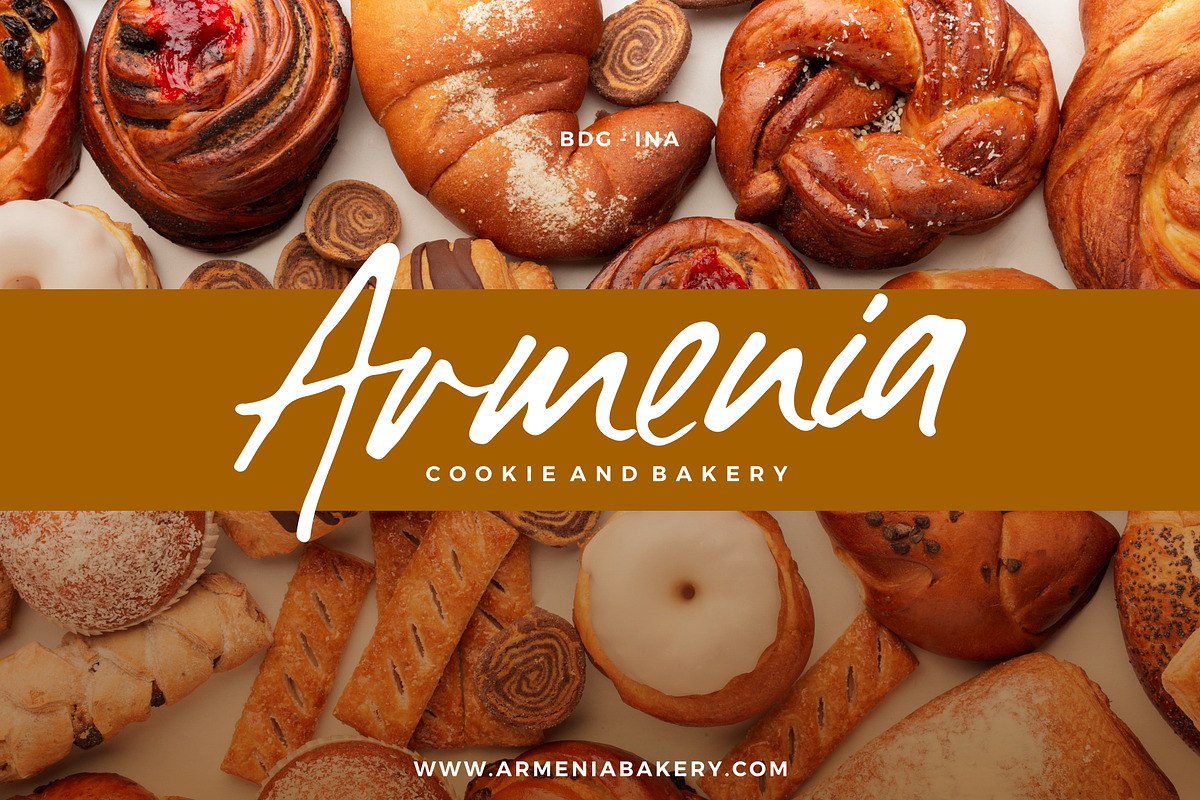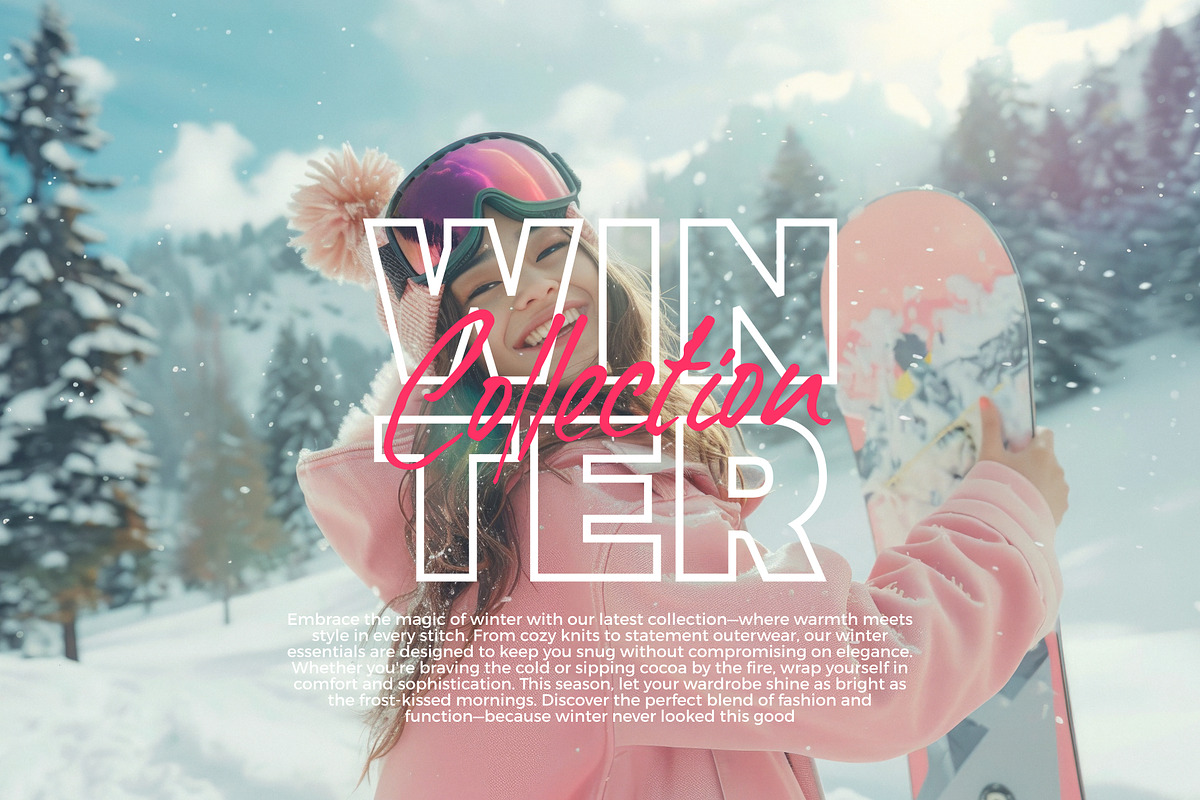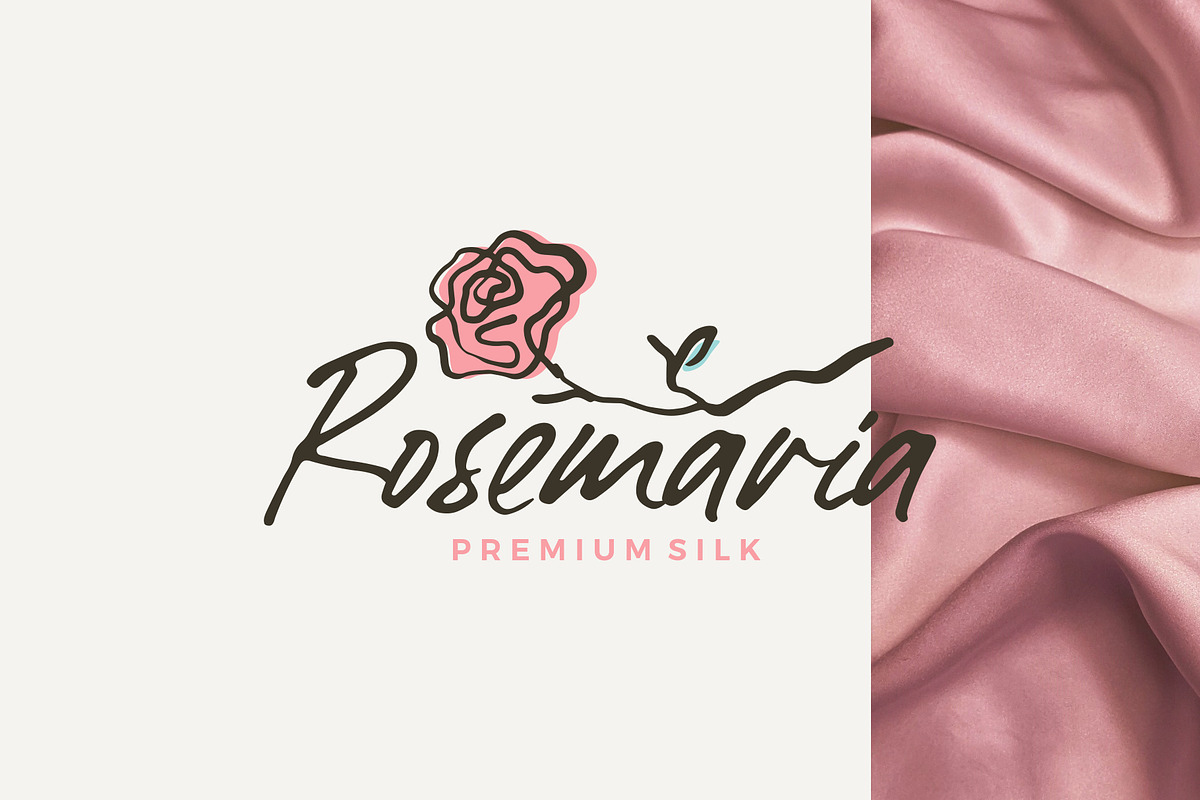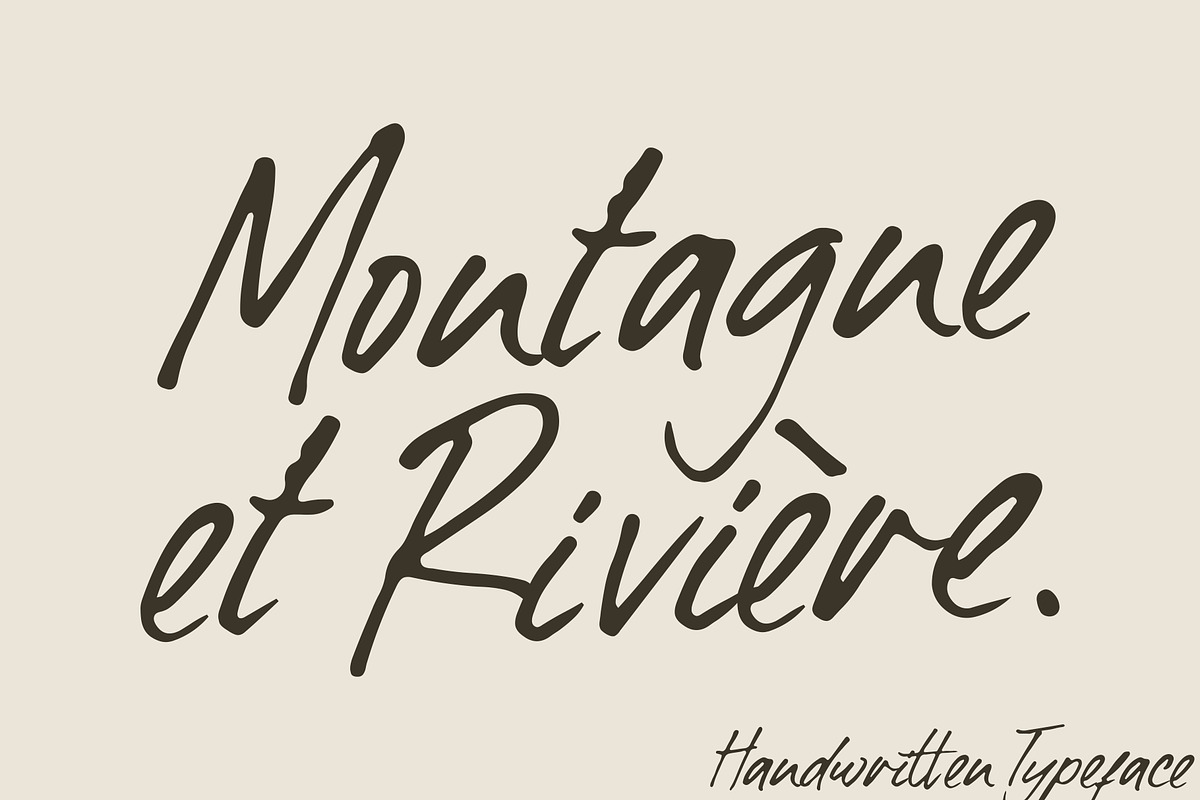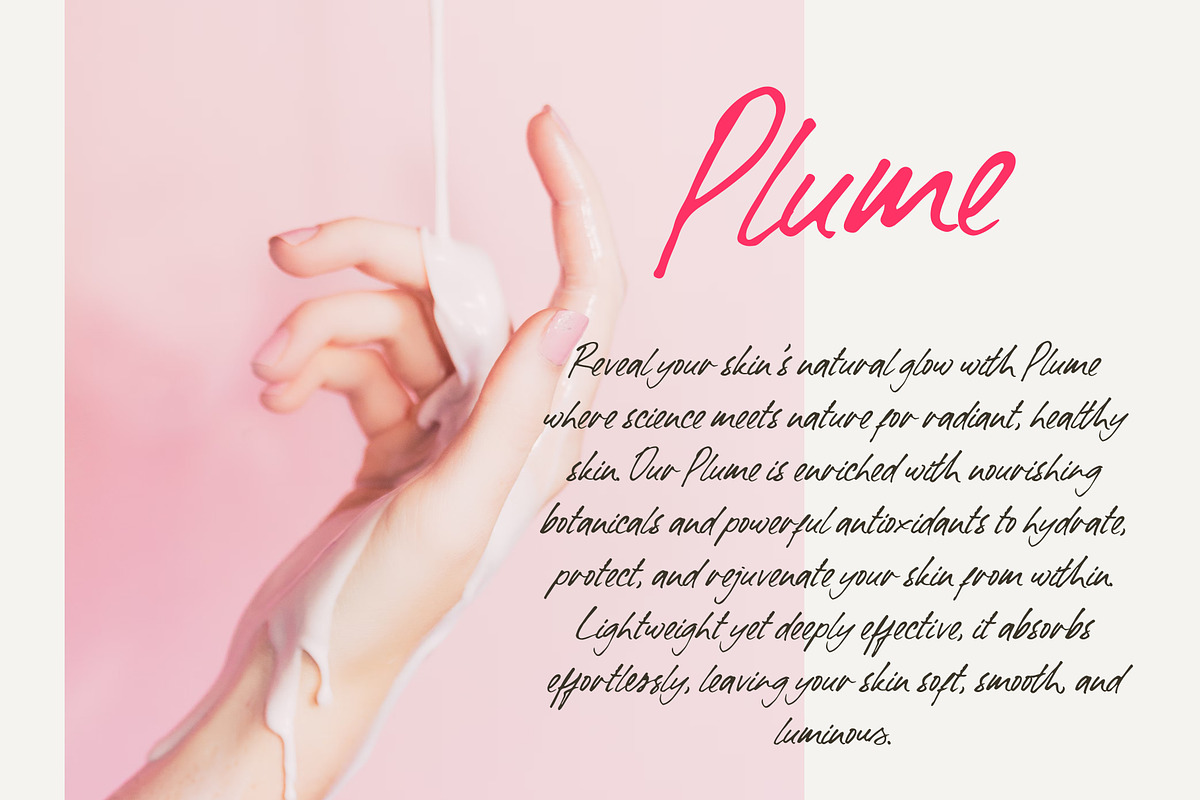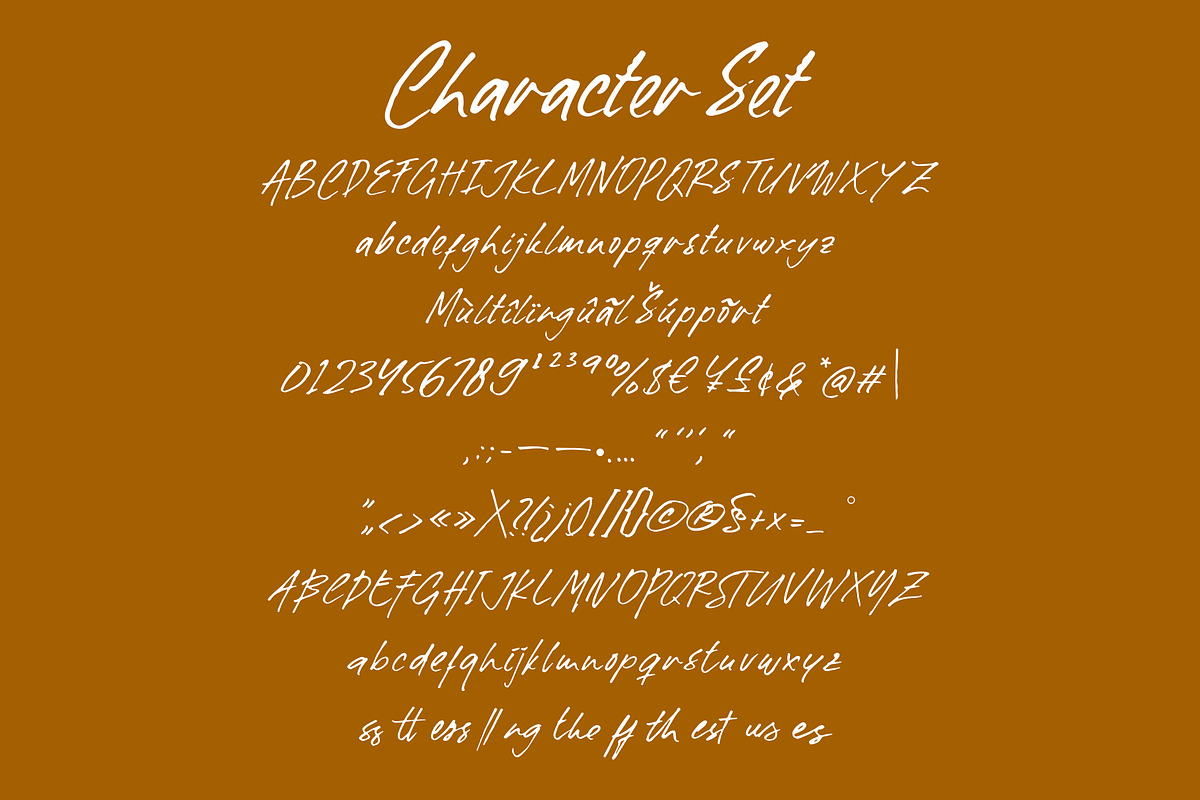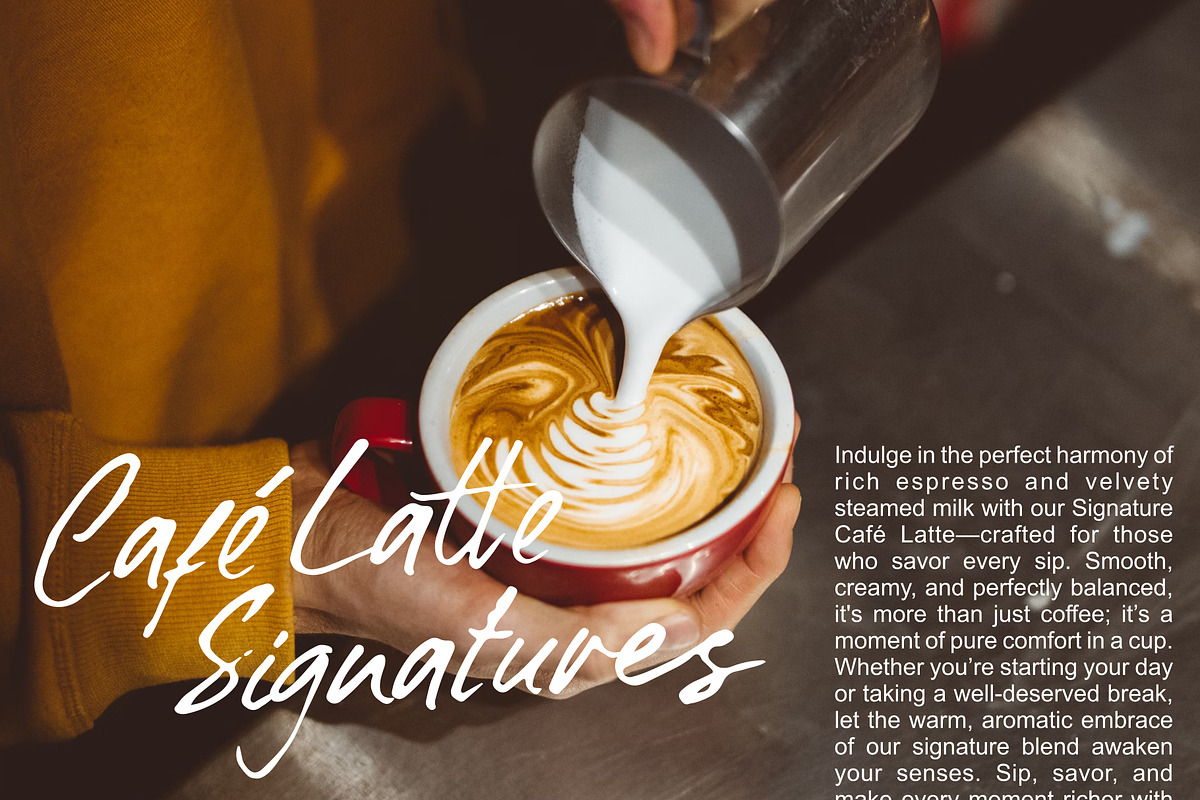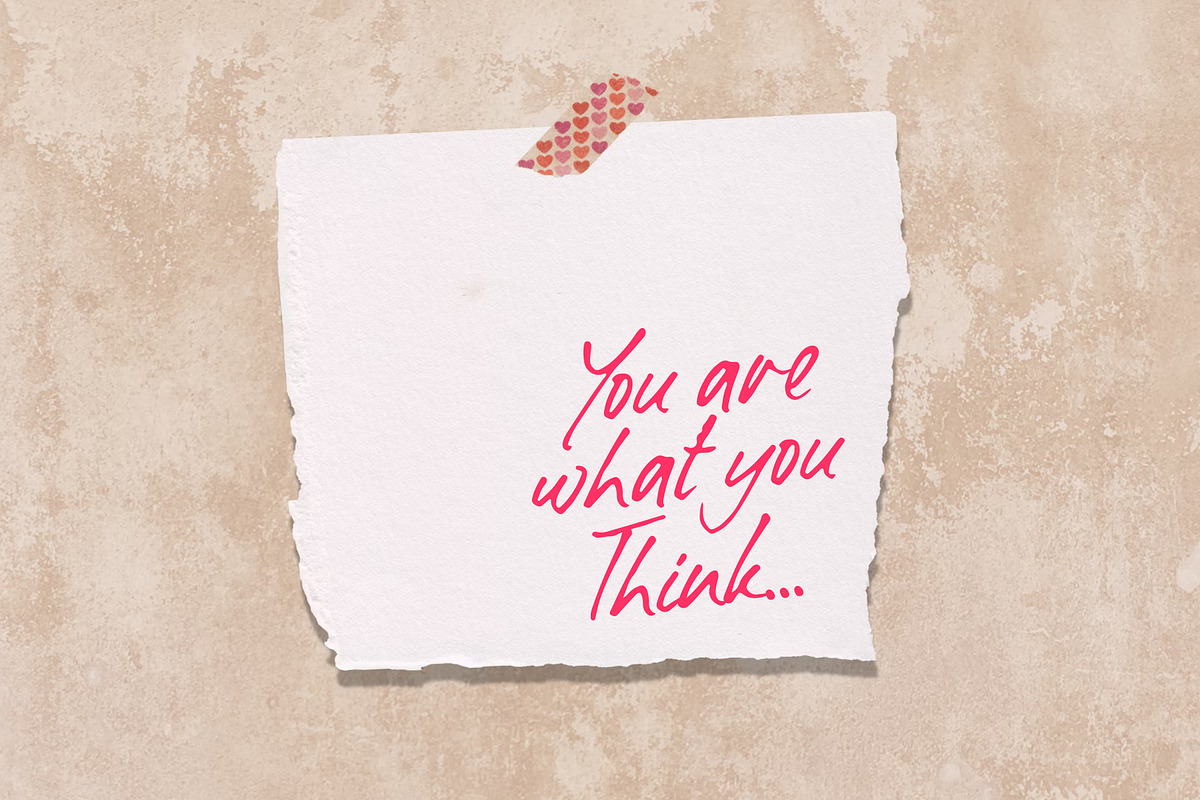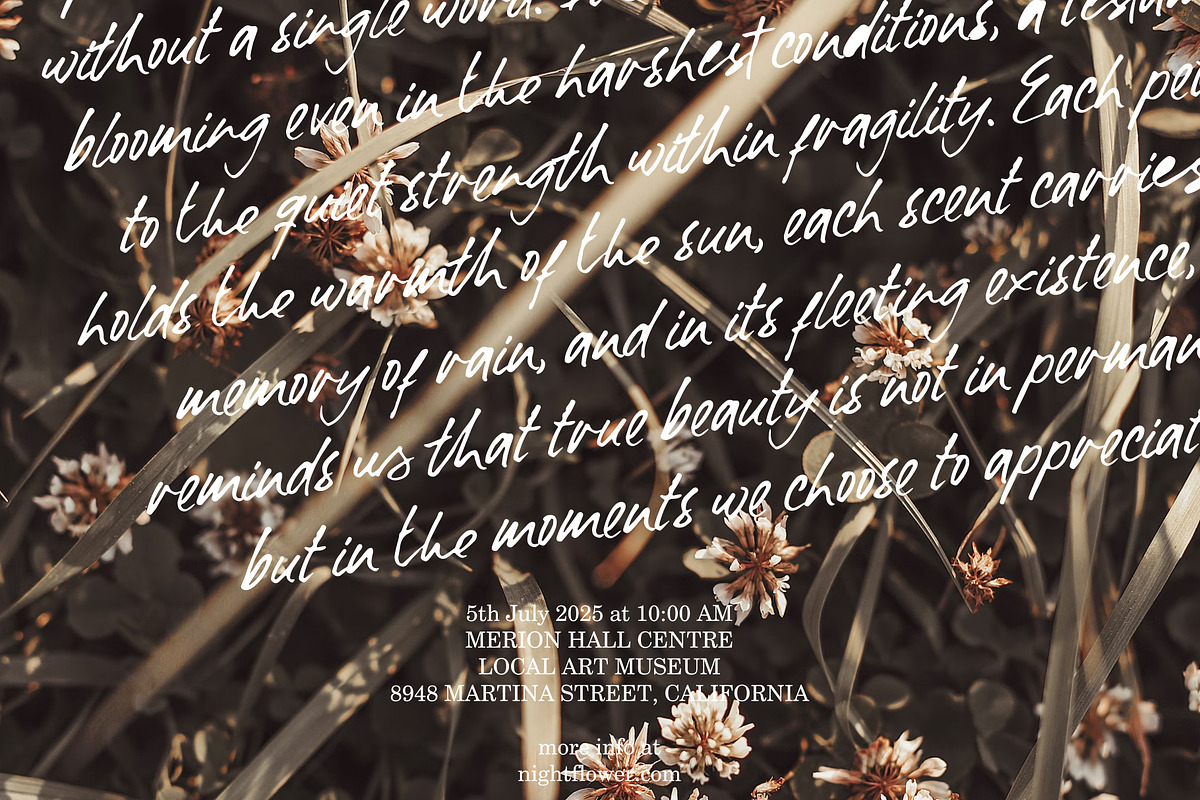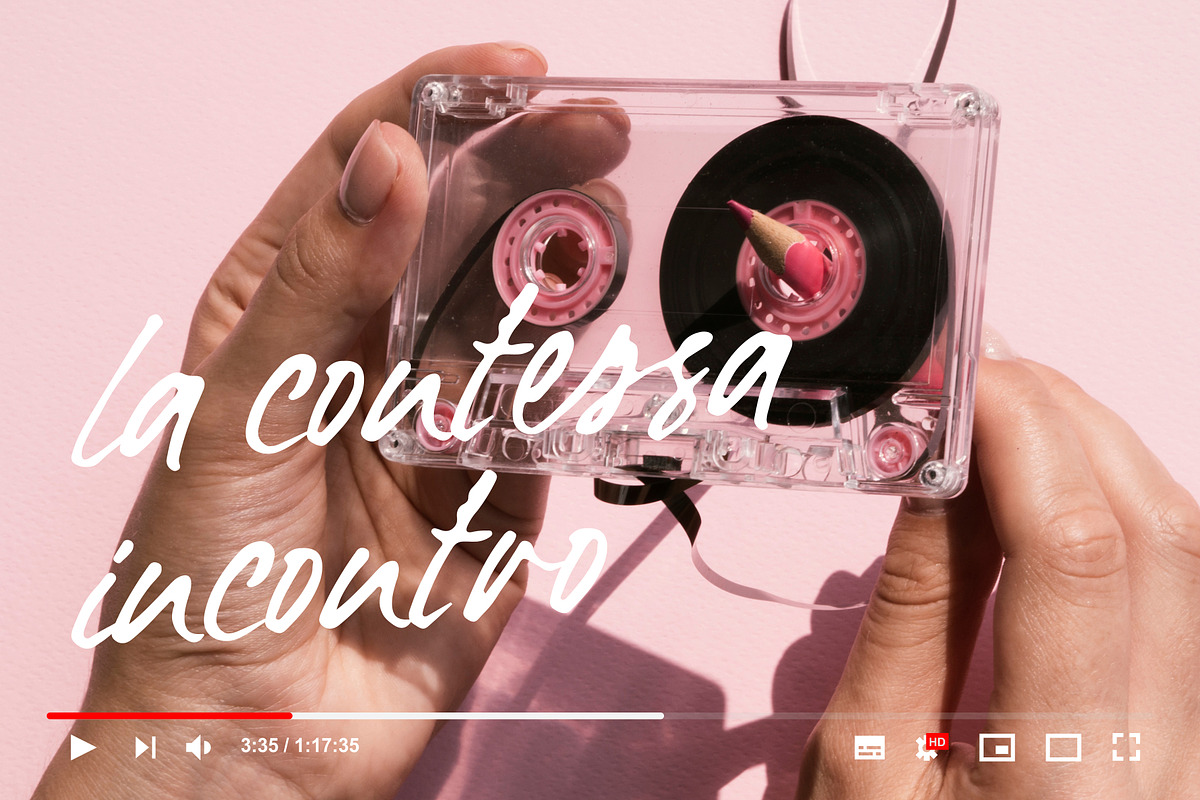
Montagne et Rivière
Montagne et Rivière – Elegant & Natural Handwritten Typeface
Inspired by the beauty of nature, Montagne et Rivière is a refined handwritten typeface crafted from natural, hand-scanned strokes. With its effortless flow and organic charm, this font brings warmth and authenticity to any design.
Perfect for logos, food & beverage branding, promotional campaigns, video titles, product packaging, quotes, posters, flyers, and stylish text overlays, Montagne et Rivière is a versatile choice for projects that seek a personal, handcrafted touch.
- Authentic handwritten strokes for a natural feel
- Elegant and versatile, perfect for branding and editorial designs
- Works beautifully in both digital and print formats
- Adds a soft, personal, and artisanal touch to any project
Let your creativity flow with Montagne et Rivière – where handwriting meets timeless elegance!